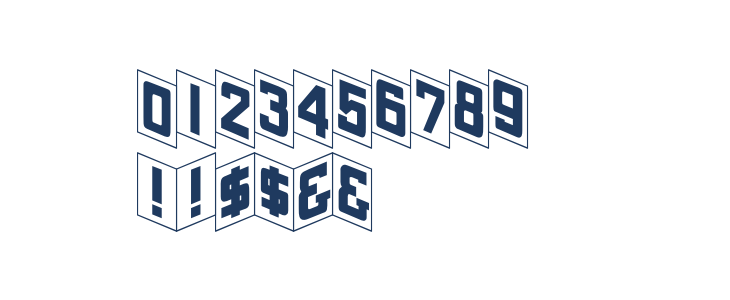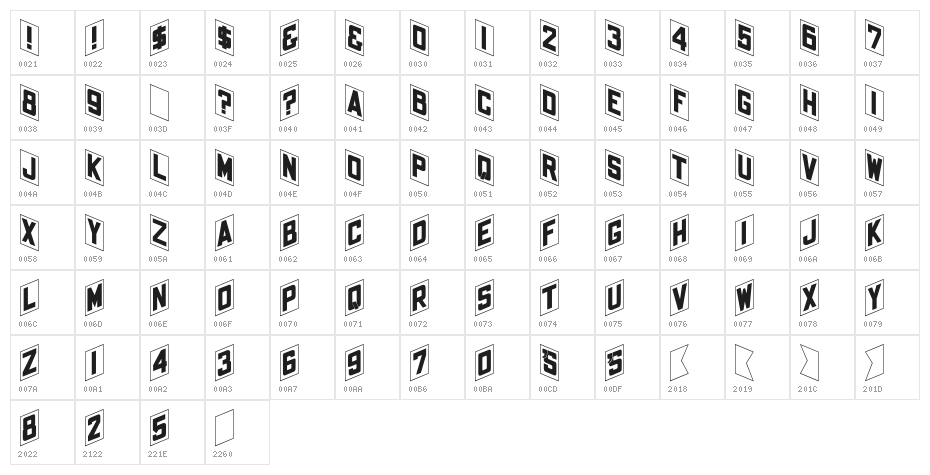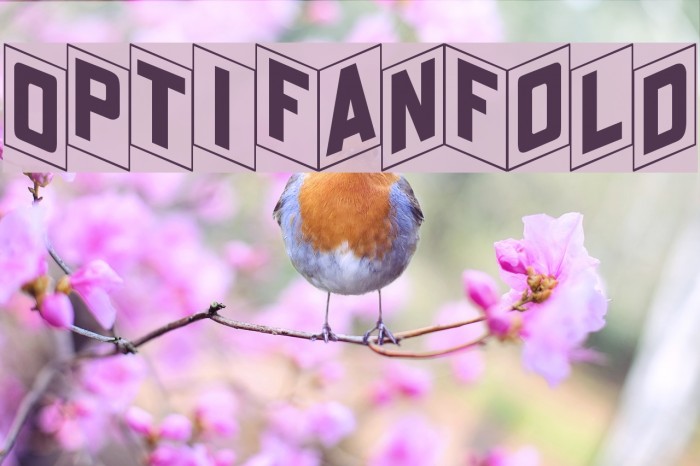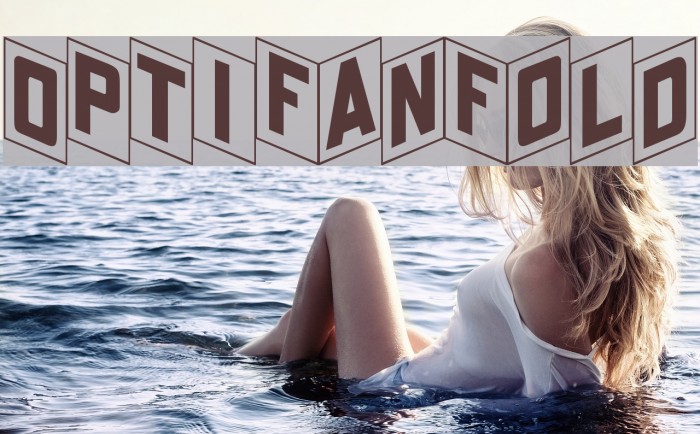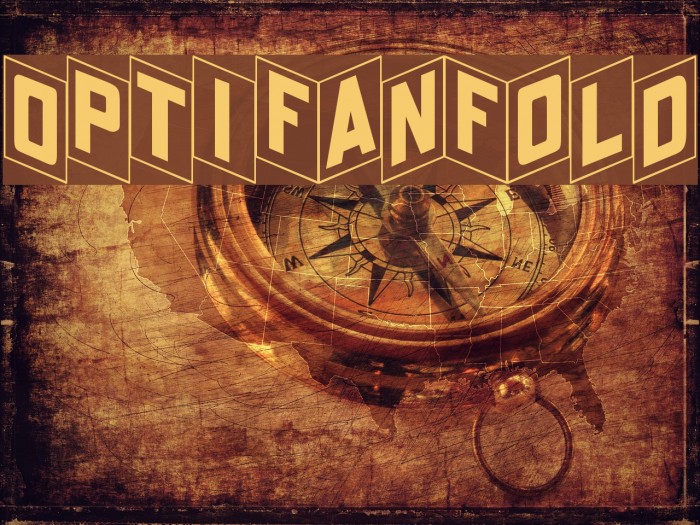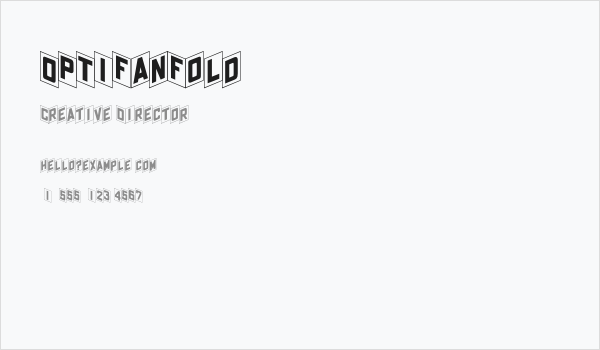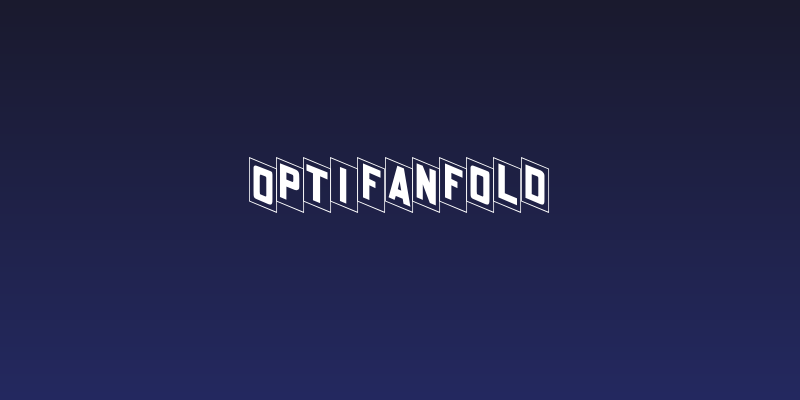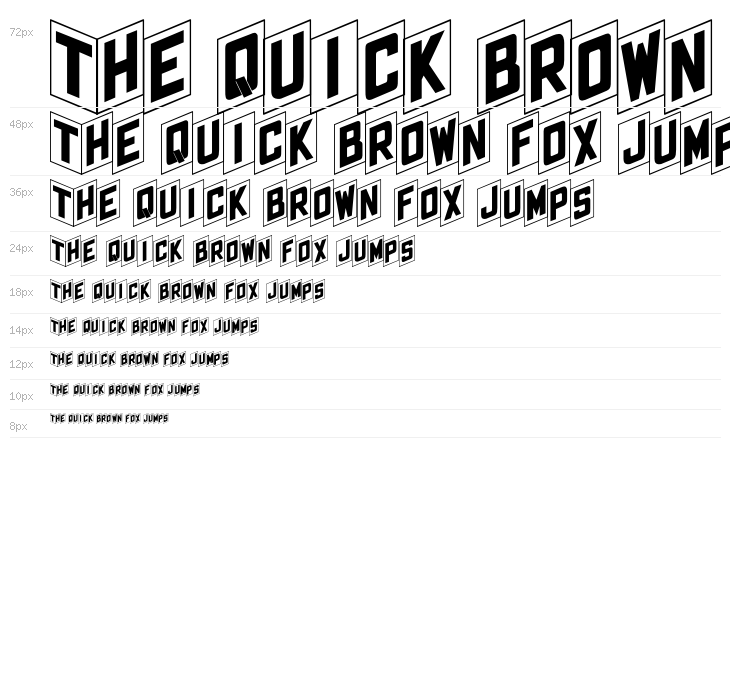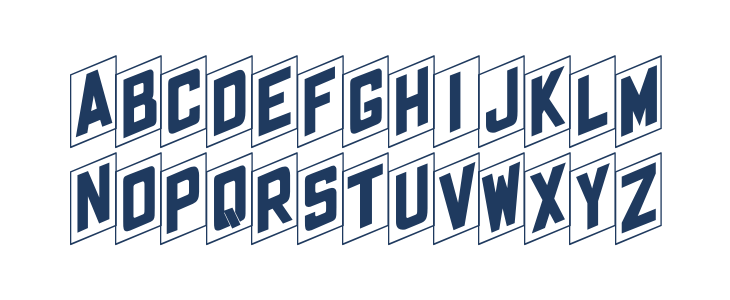
OPTIFanFold Font
OPTIFanFold Description
This font features a bold, geometric design with a three-dimensional effect that gives each character a sense of depth and movement. The letters are enclosed in a parallelogram shape, creating a dynamic and futuristic appearance. The strong, angular lines and sharp edges contribute to its modern and industrial feel. The font is highly legible, with consistent stroke widths and a uniform style across both uppercase and lowercase letters. The numbers and special characters maintain the same bold and structured aesthetic, making it suitable for impactful and attention-grabbing designs.